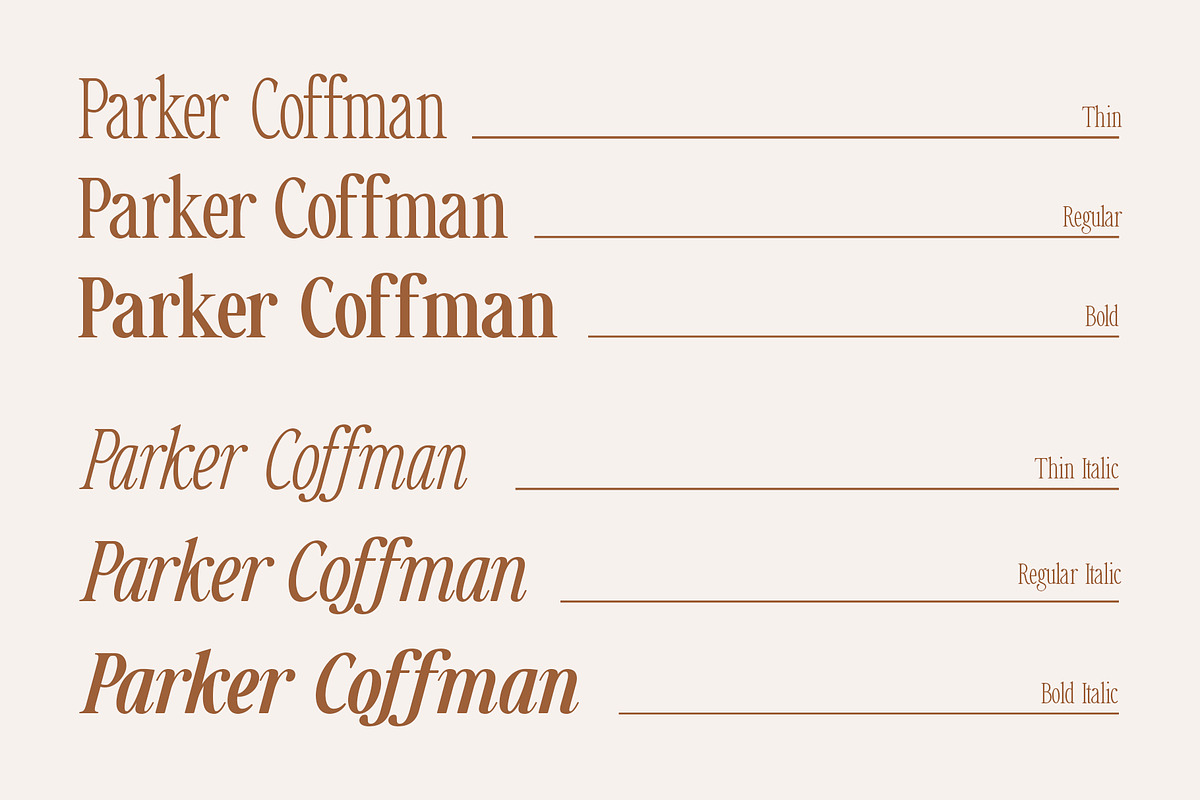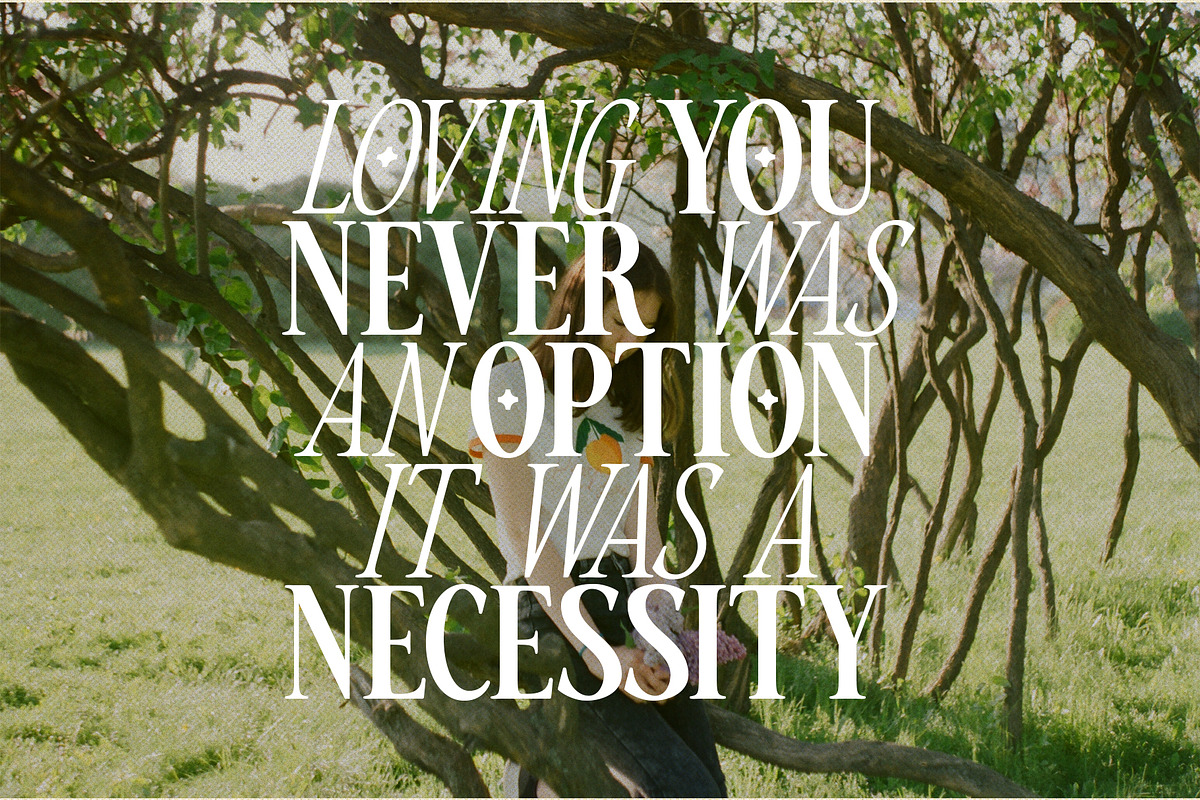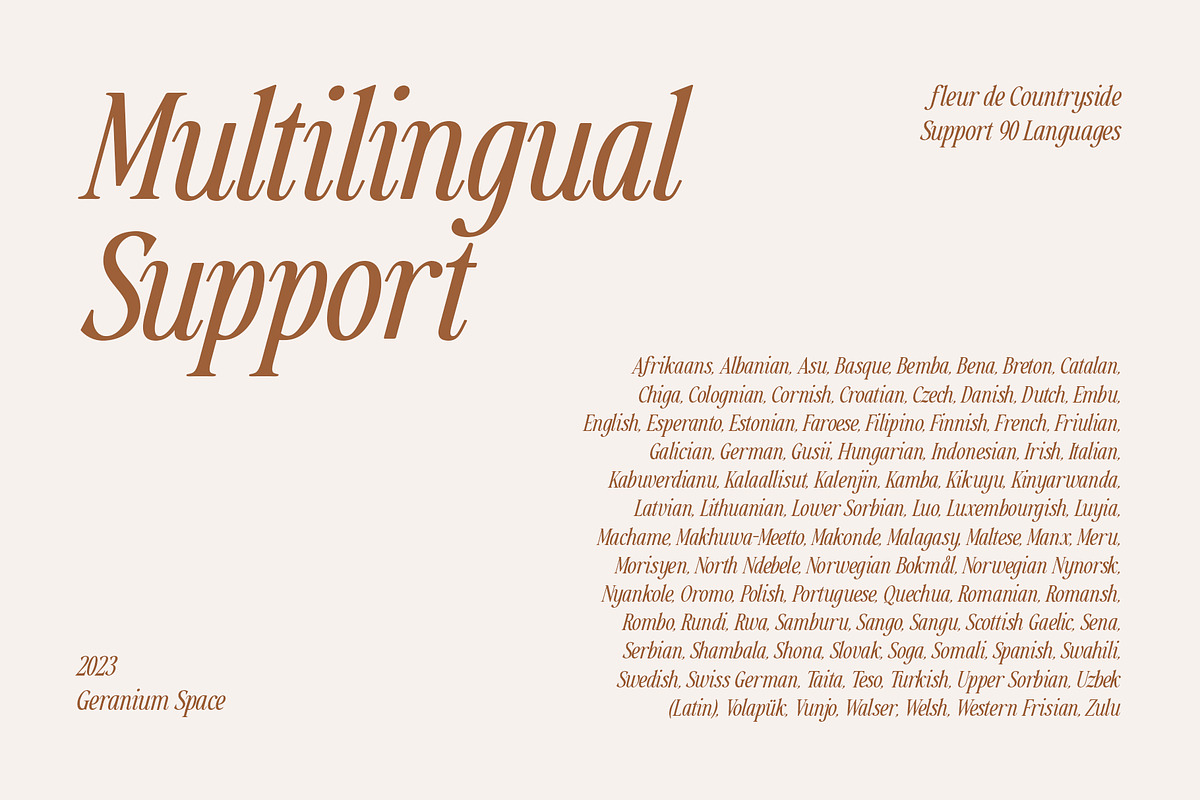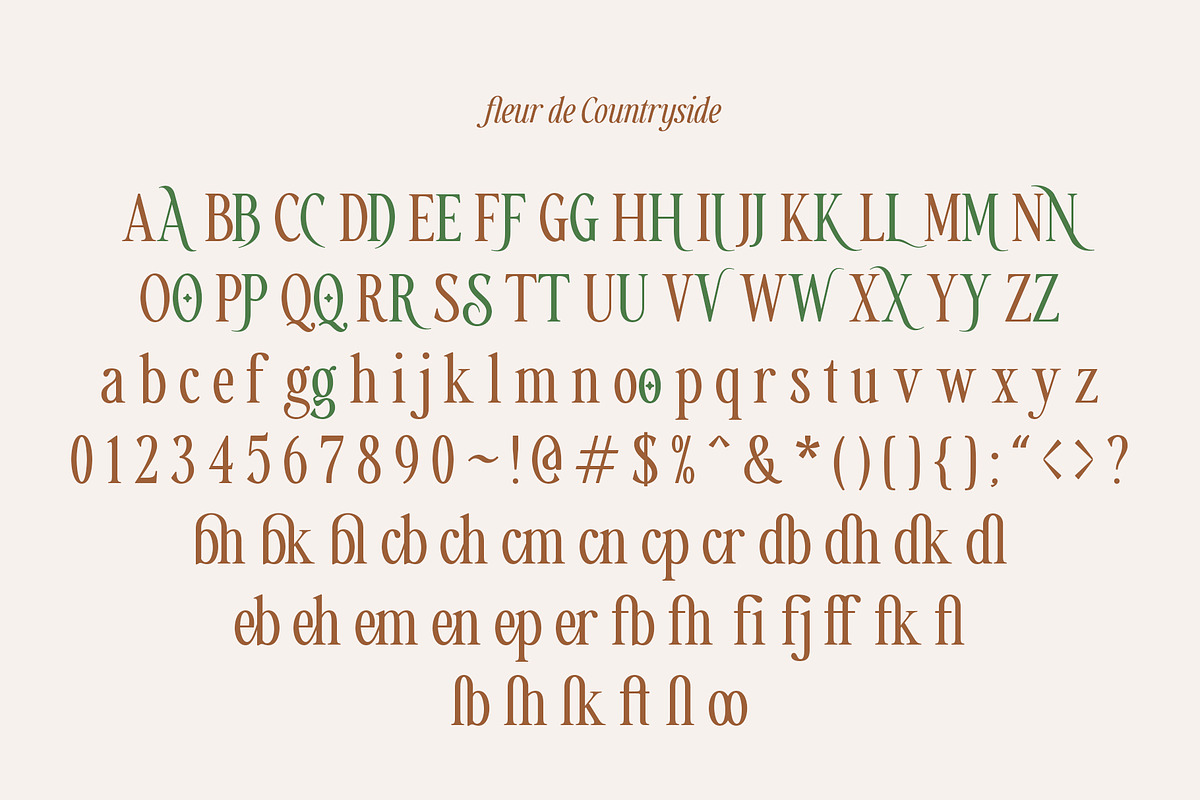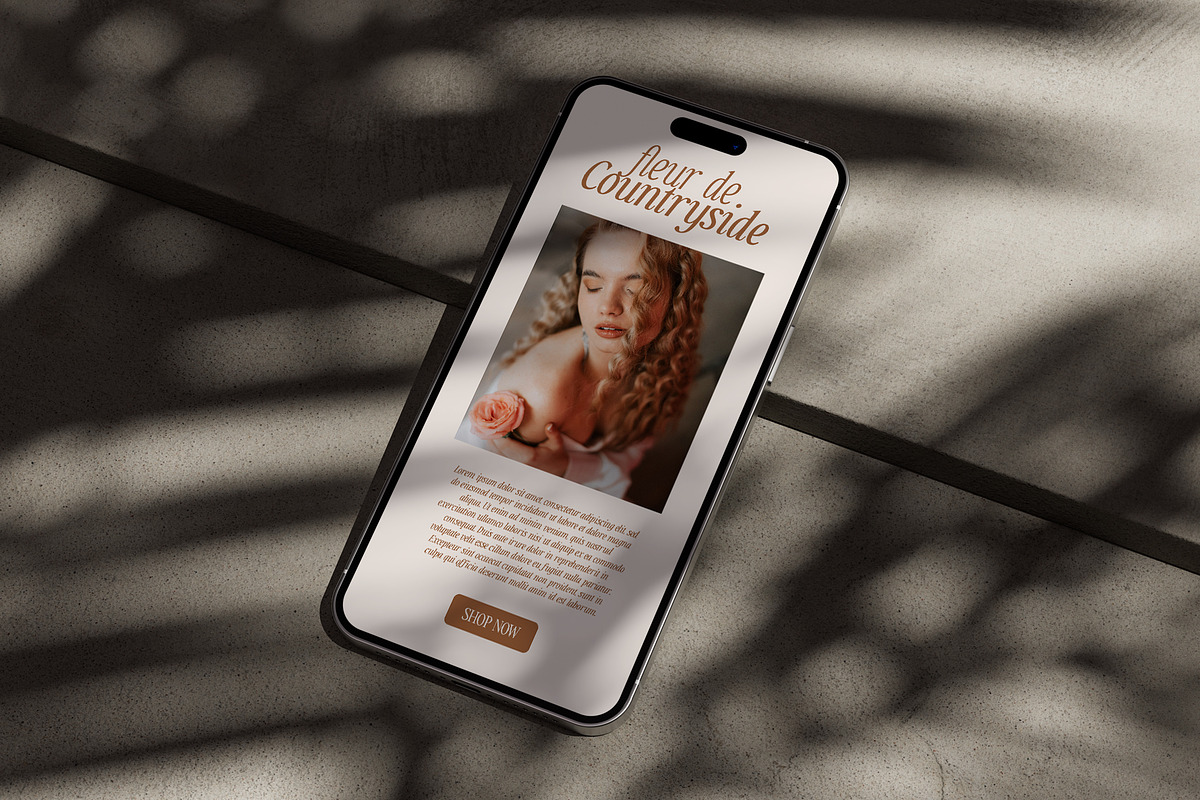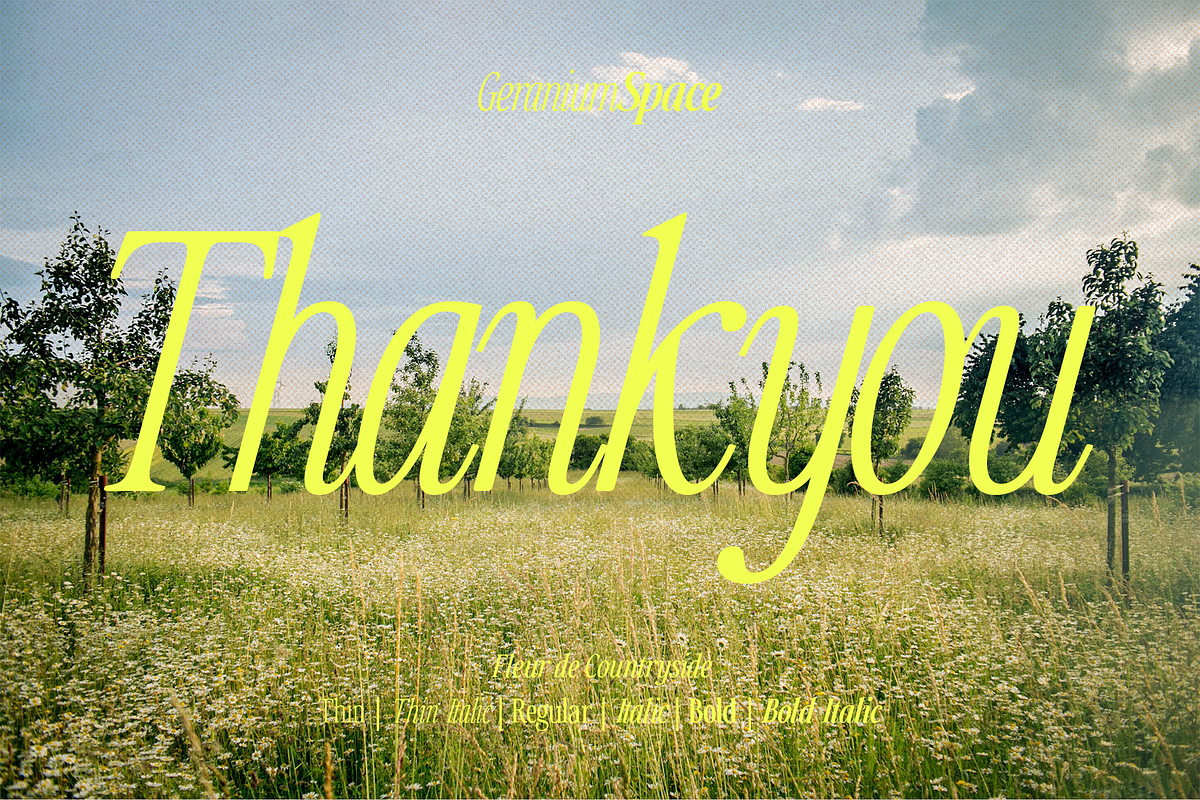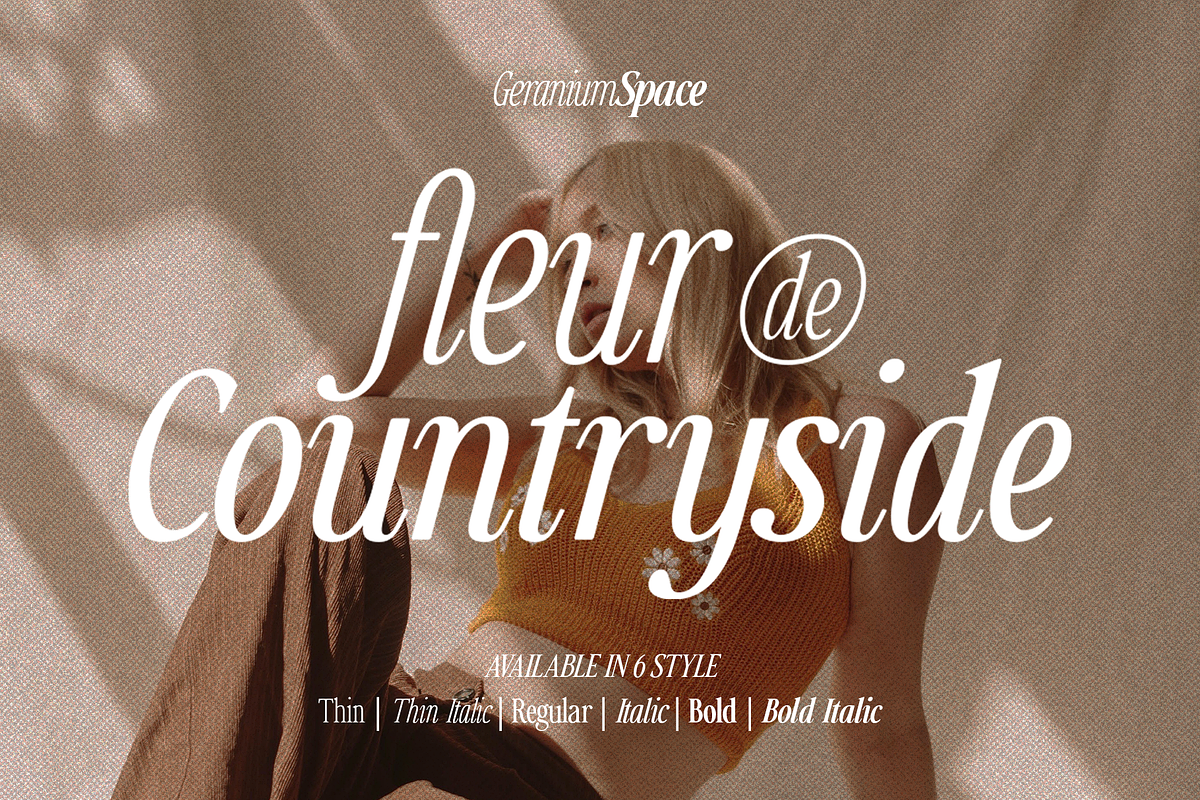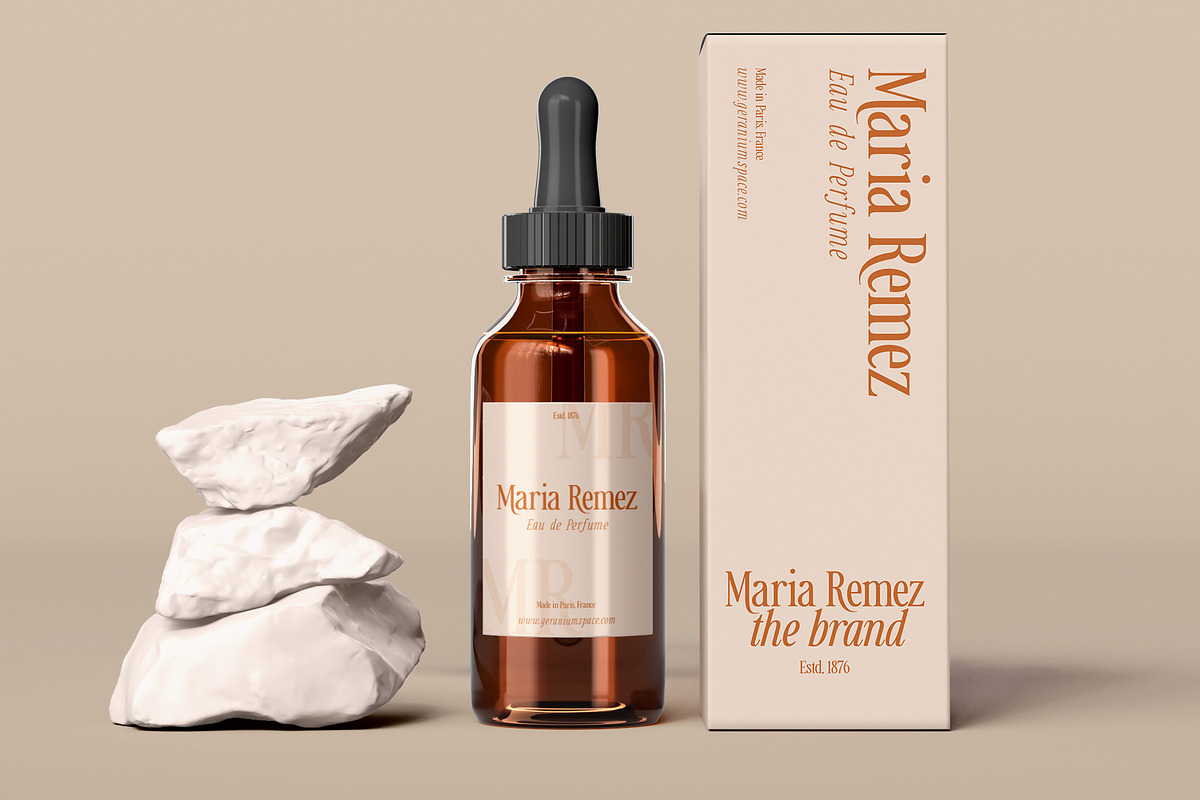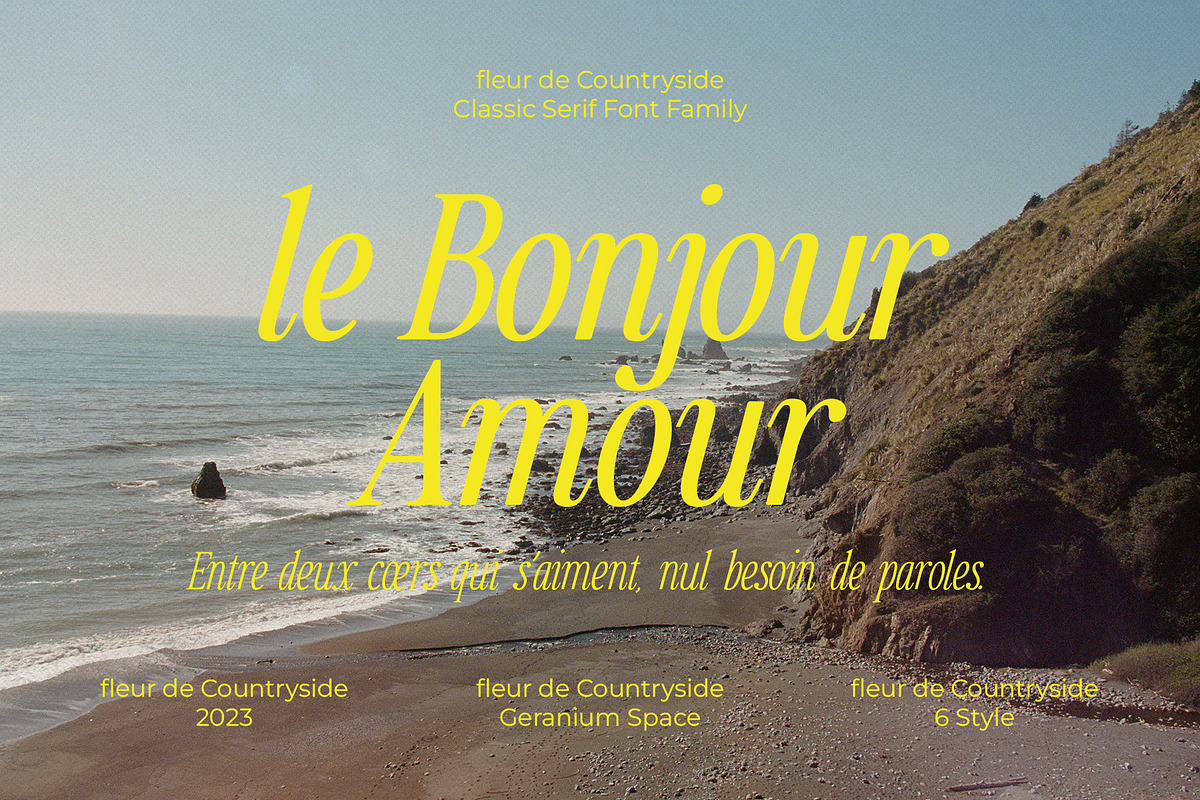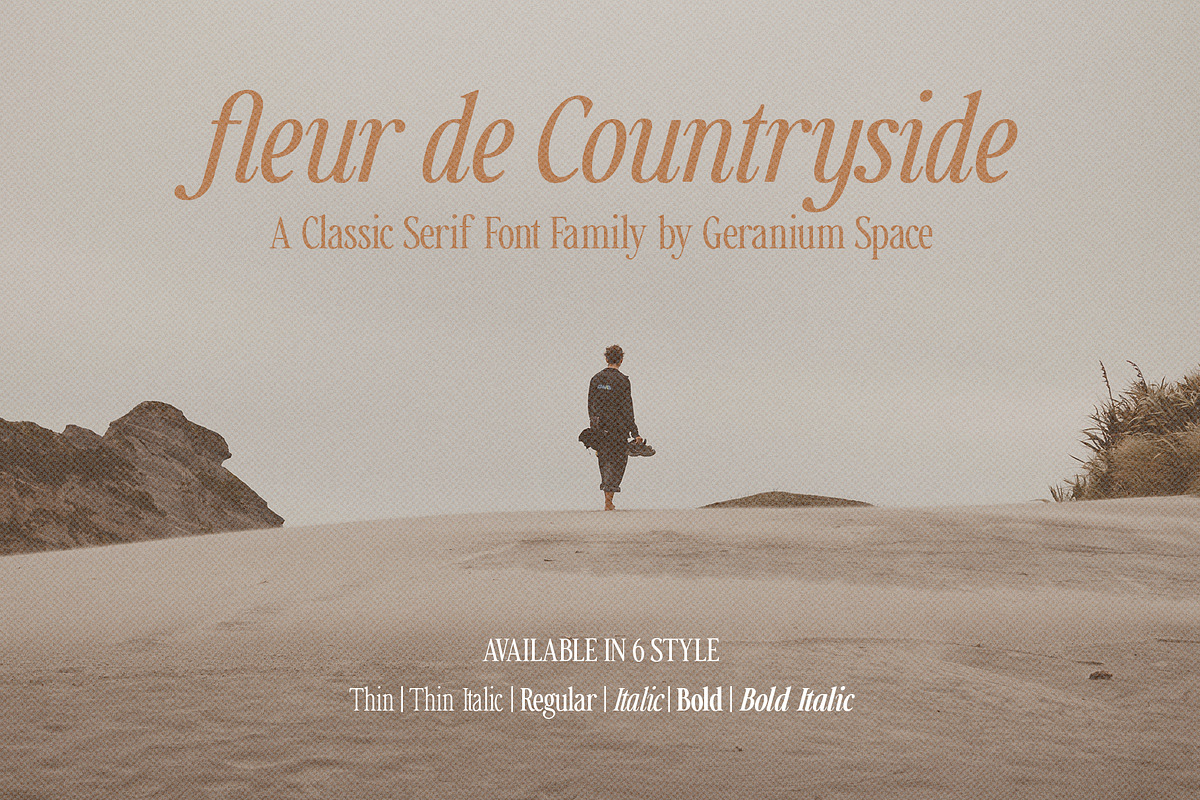
Countryside - A Modern Serif Family
Hello everyone let me introduce our new modern serif font Fleur de Countryside in a Modern Serif style. I provide many alternative letters, you can adjust to your design for a feminine impression. There are 6 types of fonts that you can use to create modern designs, such as a combination of regular and italic styles.
Countryside is perfect for Web Design, Branding, Logos, Invitations, Magazines, Posters, and many more.
Countryside Features :
- Multilanguage